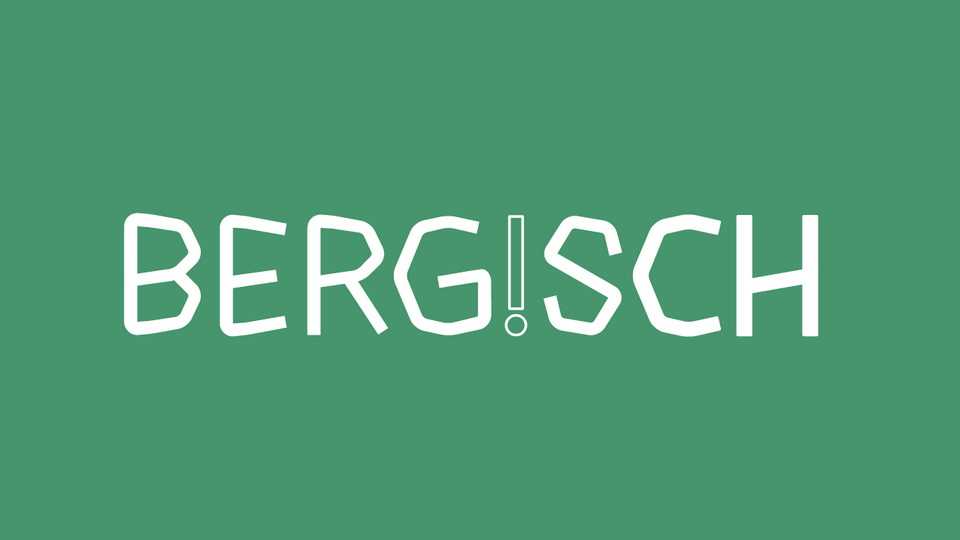
Download Bergisch font, an all-caps display typeface born in Bergisches Land, Germany. It translates the character of mountainous landscape into playful but legible geometry.
Designer: Sebastian Paetau